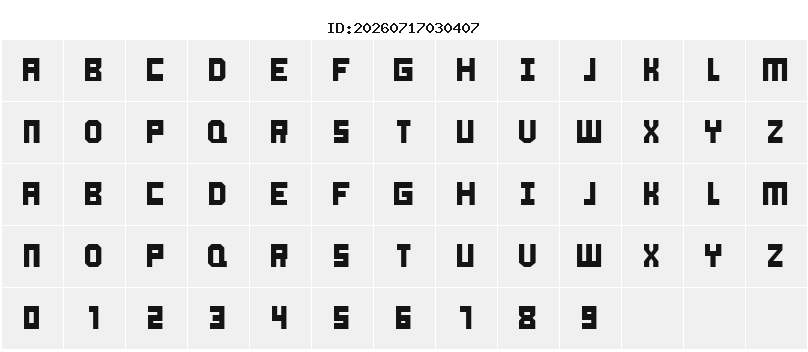
A Okay Preview
• Font Name: A Okay
• Designer: tm
• Manufacturer: tm
About A Okay.ttf
A Okay.ttf is a modern, elegant sans-serif font designed for ultimate readability and visual harmony. Perfect for branding, headlines, web design, and print materials.